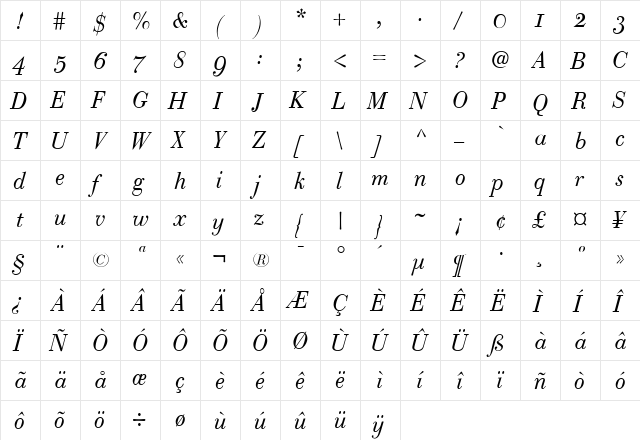
Bodoni Classic Text Italic
Design Context for Bodoni Classic Text Typeface
Bodoni Classic Text wears its vintage influences proudly, with letterforms that recall mid-century signage, classic packaging, and nostalgia-driven design. The slanted form adds forward momentum and visual energy.
Perfect for vintage-inspired branding, retro packaging, nostalgia campaigns, and period-accurate editorial design.
Font Pairing: Combine Bodoni Classic Text with a simple slab or neutral sans — period-accurate companions reinforce the vintage feel without competing for attention.
Pro Tip: Use Bodoni Classic Text for headlines and pull quotes rather than body copy — its personality is best appreciated in short, focused bursts.